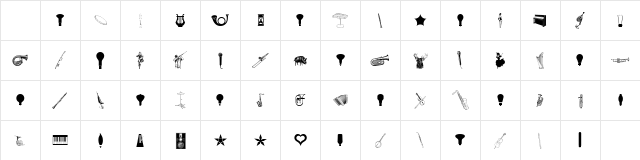
Complete Cornucopia of Dingbats Eight Regular glyph index. Displaying only characters natively supported by Cornucopia of Dingbats Eight Regular font.
Cornucopia of Dingbats Eight is a composed and adaptable typeface that performs quietly and consistently across a wide range of design contexts.